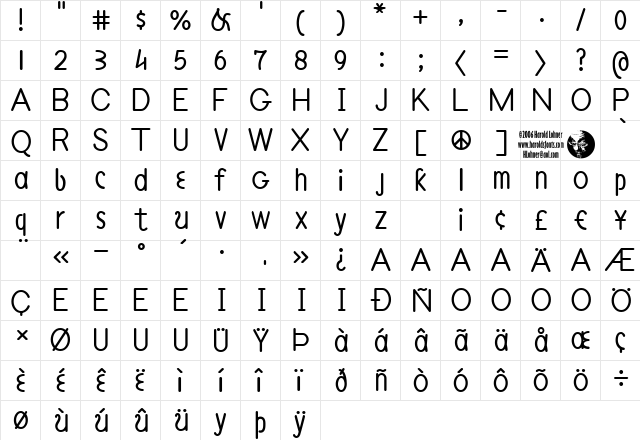
Philadelphia LineAligned Regular
Design Context for Philadelphia LineAligned Typeface
Philadelphia LineAligned offers clean, dependable letterforms without strong stylistic allegiance, making it a practical choice for designers who need flexibility.